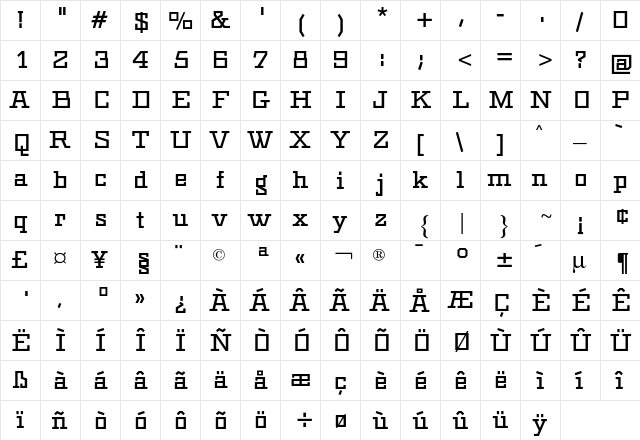
Geometric CG Bold Regular
Design Context for Geometric CG Bold Typeface
Geometric CG Bold is a composed and adaptable typeface that performs quietly and consistently across a wide range of design contexts. Its bold stroke weight gives it real presence on the page.